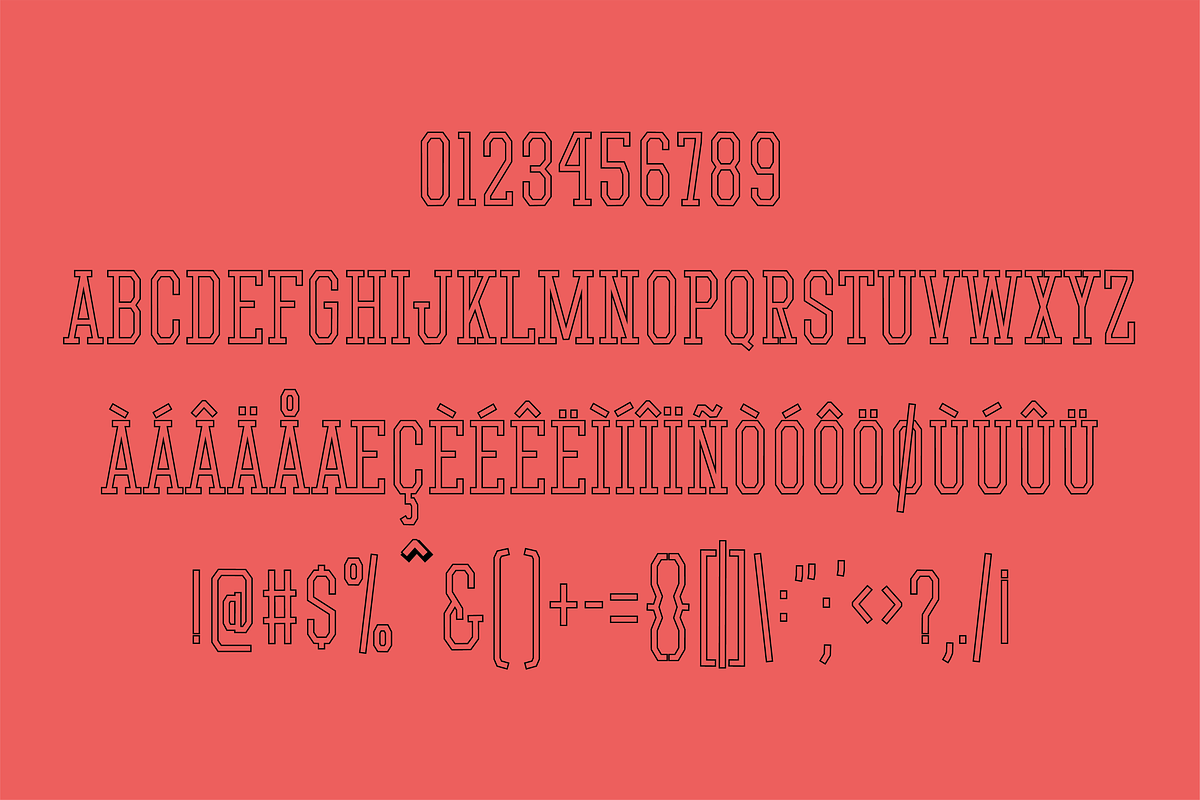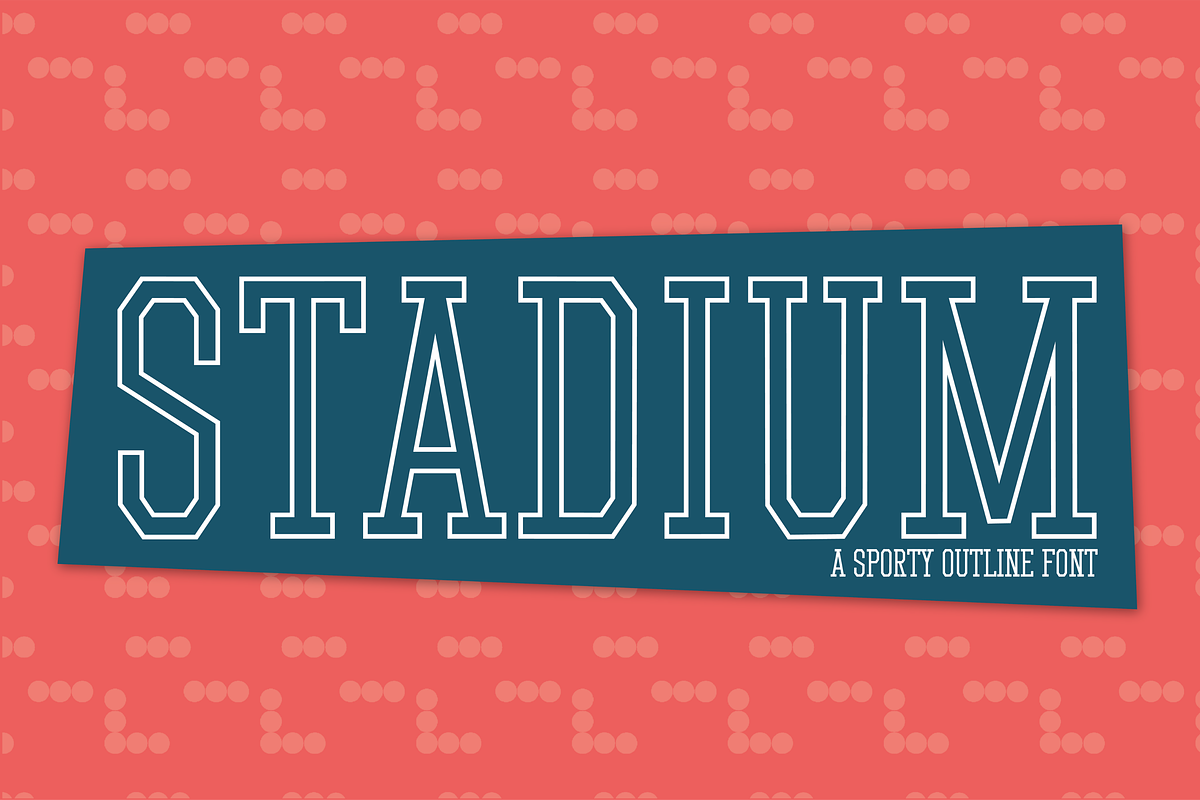
Stadium
Stadium Sport Font is ideal for sports-themed design projects. Its bold thin serif style features a thin, outlined shape that stands out yet remains legible. It is an versatile choice given its boldness, helping you make a bold statement with your design.